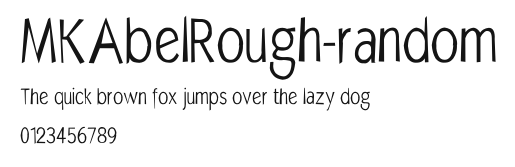
• Font Name: MKAbelRough-random
• Font ID: MKAbelRough-random
• Full Font Name: MKAbelRough random
• PostScript Name: MKAbelRough-random
About MKAbelRough-random.ttf
MKAbelRough-random.ttf is a modern, elegant sans-serif font designed for ultimate readability and visual harmony. Perfect for branding, headlines, web design, and print materials.